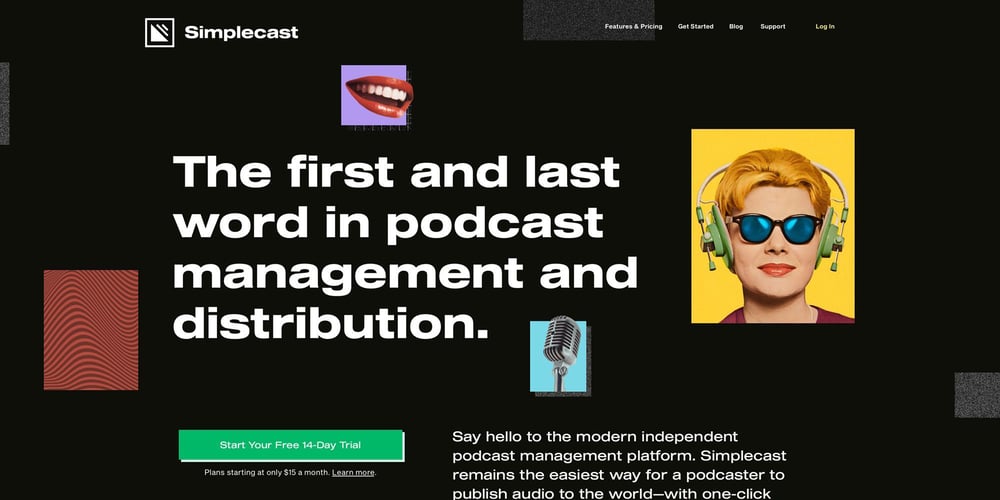
Sequel 100 Wide
Sequel 100 Wide font
Sequel 100 Wide Font Family was designed by Oliver Jeschke and published by OGJ Type. Sequel 100 Wide contains 1 styles and family package options. Sequel 100 Wide is a static sans-serif or neogrotesque with generous horizontal proportions. A variant of the original Sequel Sans, it considerably expands the stylistic scope of the Sequel superfamily. In addition to its wider letterforms, it has got a larger x-height, slightly shifting the historical flavor from the 1950s to the 1960s. Yet, at its core, it’s as clean and functional as the main font family, with perfectly horizontal stroke endings and vertical terminals. Six weights from 45 (Regular) to 95 (Black), matching italics, and limitless possible interpolations by means of two Variable Fonts offer a rich typographic palette for any situation.